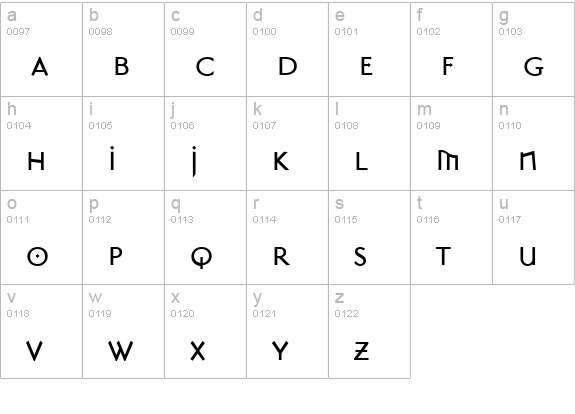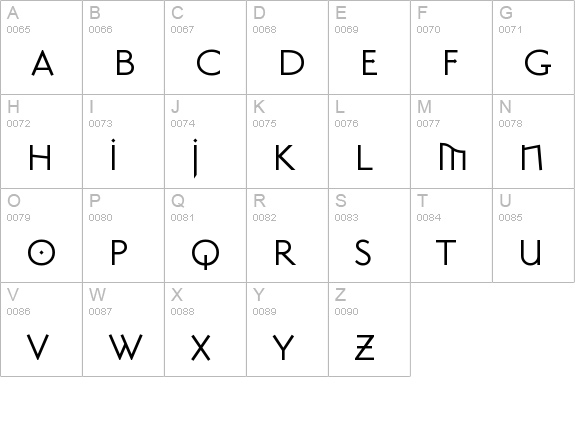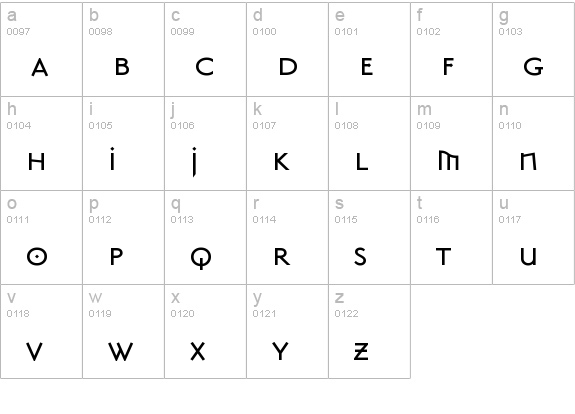
MasonSansAlternate Regular Font Details
MasonSansAlternate Regular is the standard, neutral variant in the MasonSansAlternate typeface family \xE2\x80\x94 well suited to general body text, paragraphs, and standard typographic work.
MasonSansAlternate Regular is a versatile and modern font that adds a touch of sophistication to any design. Its clean and geometric shapes give it a contemporary feel, making it perfect for logos, headlines, and branding projects. This font is designed with precision, ensuring excellent legibility even at smaller sizes. With its alternate characters, MasonSansAlternate Regular offers a unique and dynamic look, allowing designers to experiment and create truly memorable designs. The variations in letterforms add a sense of playfulness and creativity to any project. But what makes MasonSansAlternate Regular even more appealing is that it is free! Yes, you read that right. This amazing font is freely available to download at FontsMarket.com. Now, you can experience the beauty and versatility of this font without having to spend a single penny. So why wait? Download MasonSansAlternate Regular today and let your creativity soar. Whether you are a professional designer or a casual hobbyist, this font will surely become an essential tool in your design arsenal. Don't miss out on this incredible opportunity to enhance your projects with a free, high-quality font. Visit FontsMarket.com now and start exploring the endless possibilities with MasonSansAlternate Regular.